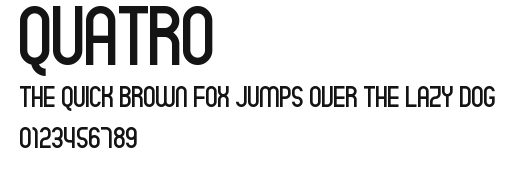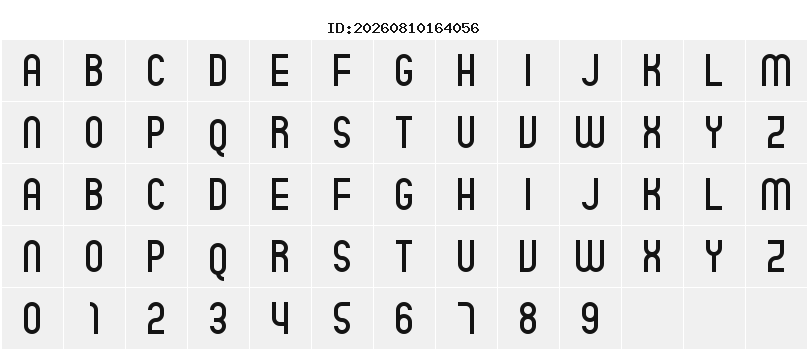
• Font Name: Quatro
• Font ID: FontStruct Quatro
• Full Font Name: Quatro Regular
• PostScript Name: Quatro
• Character Count: 161
• Copyright: Copyright André Felipe 2016
• Designer: André Felipe
• Description: “Quatro” was built with FontStruct
About Quatro.ttf
Quatro.ttf is a modern, elegant sans-serif font designed for ultimate readability and visual harmony. Perfect for branding, headlines, web design, and print materials.